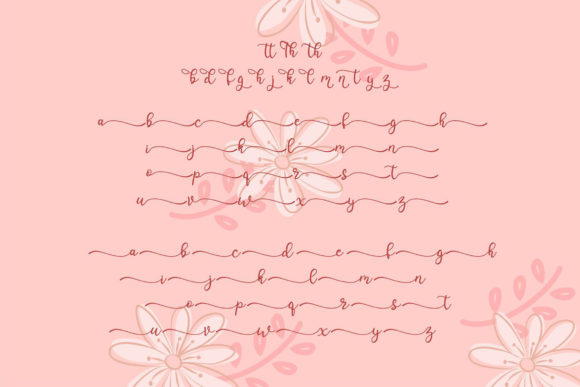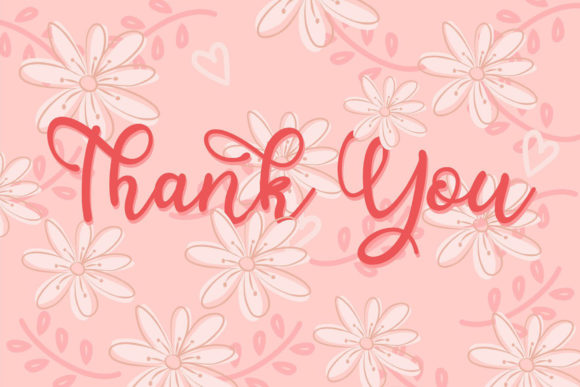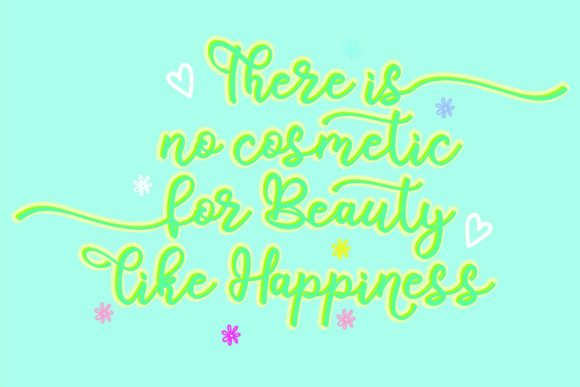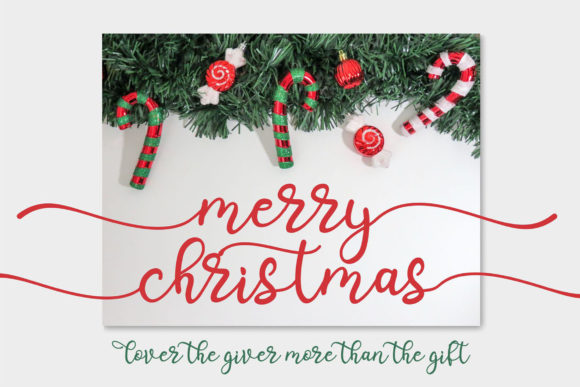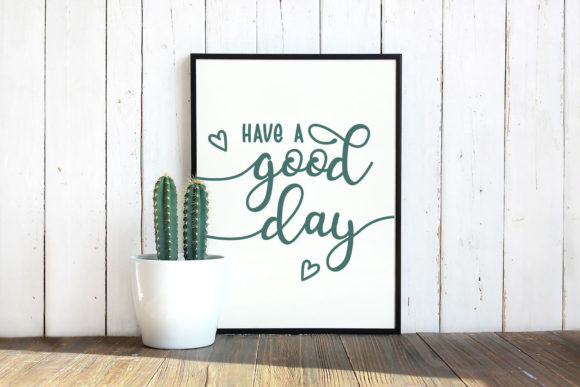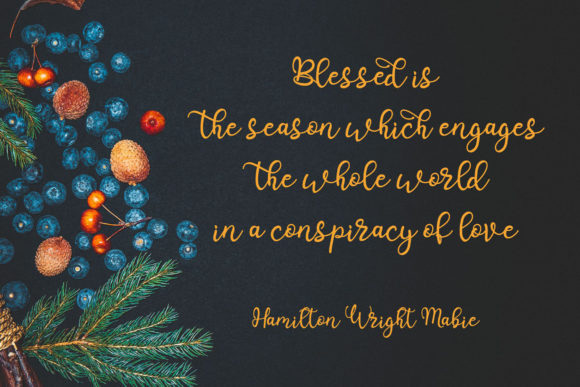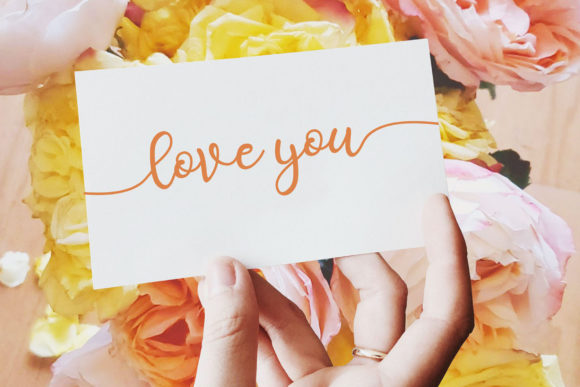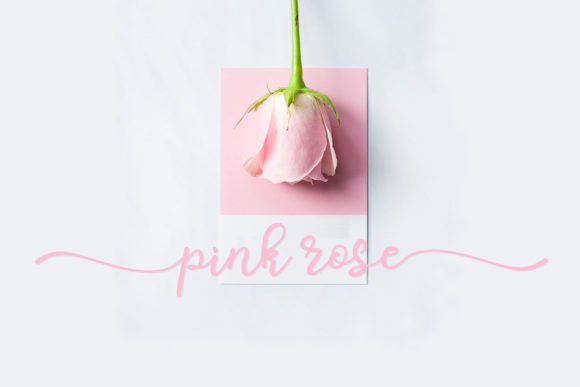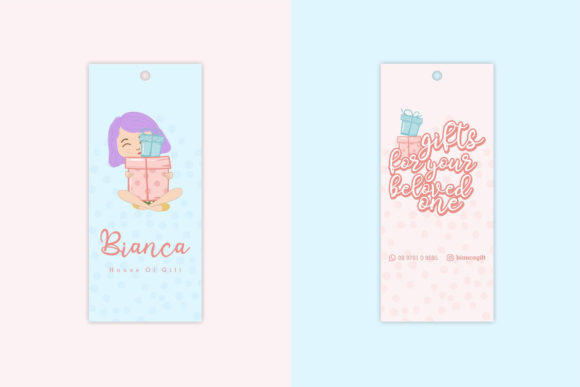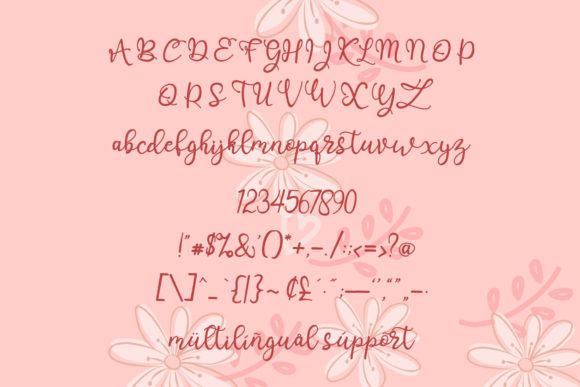
La Mas Bonita Font
About La Mas Bonita Font
La Mas Bonita is a lovely swashy font. It’s perfect for logos, posters, wedding invitations, quotes and much more!